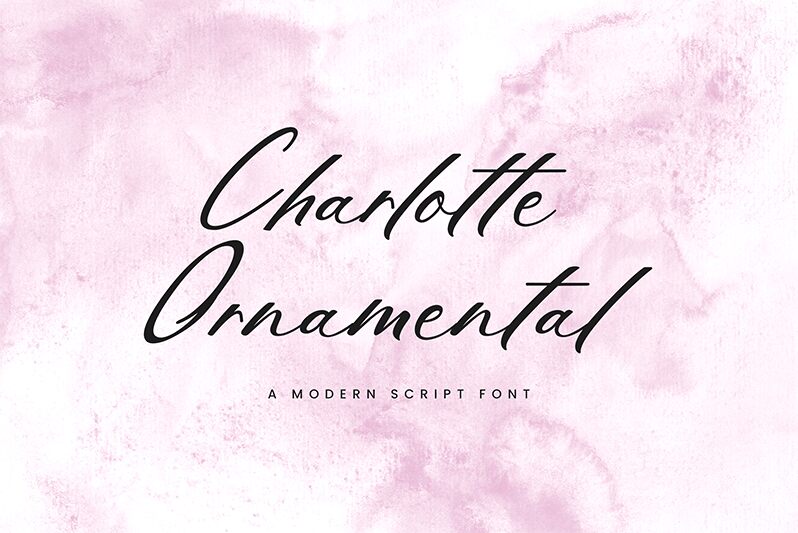
CharlotteOrnamental
Charlotte Ornamental by UI Creative is a stunning calligraphy font that exudes elegance and sophistication. Its gracefully flowing strokes and intricate details create a captivating visual experience, making it perfect for projects that require a touch of refinement. The delicate, ornamental curves lend themselves beautifully to wedding invitations, luxury branding, and high-end packaging.
The lightness of the font adds an airy quality that enhances its overall charm without sacrificing readability. Charlotte Ornamental's sophisticated style is ideal for creating standout headlines or adding an exquisite personal touch to any design. Whether you're aiming to evoke timeless beauty or modern grace, this font's unique characteristics make it a versatile choice for various creative applications.